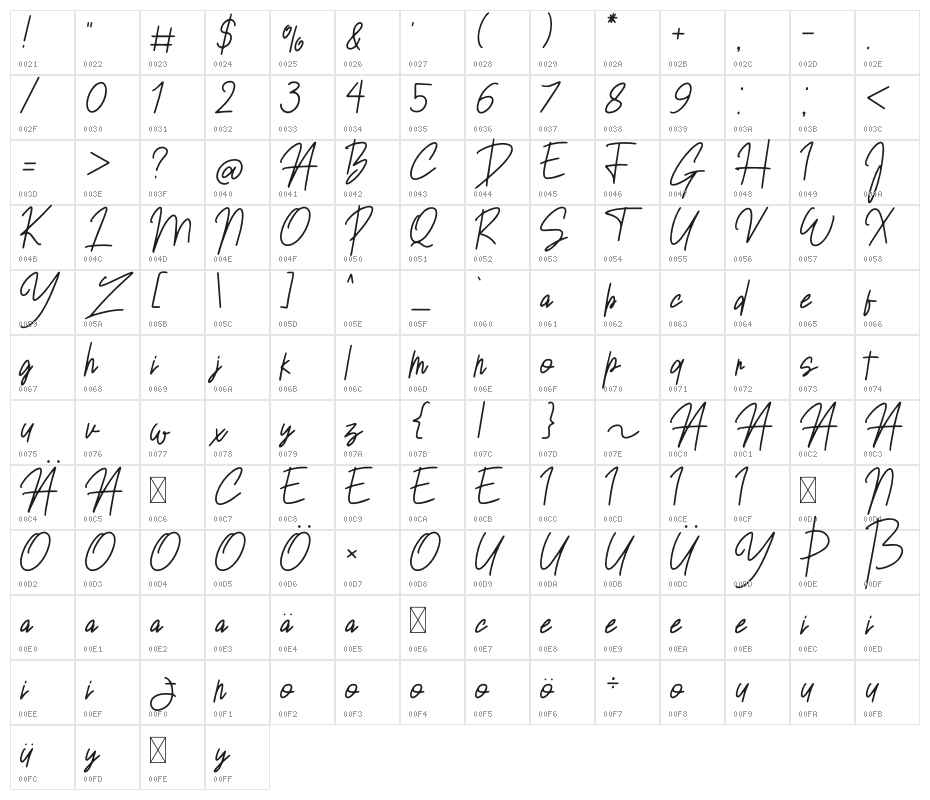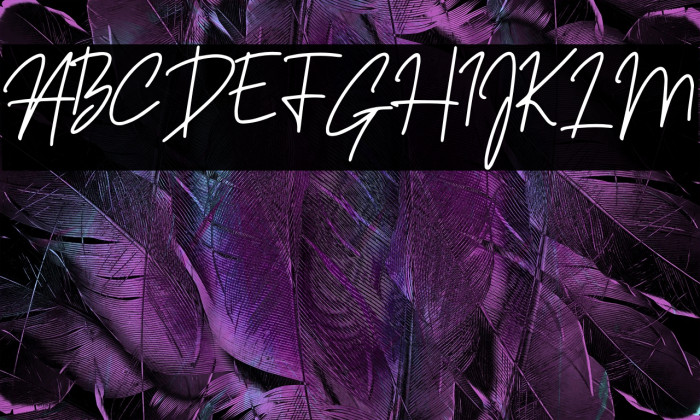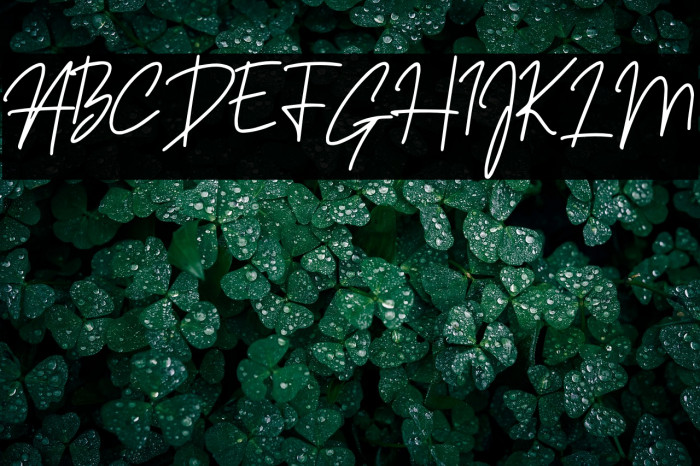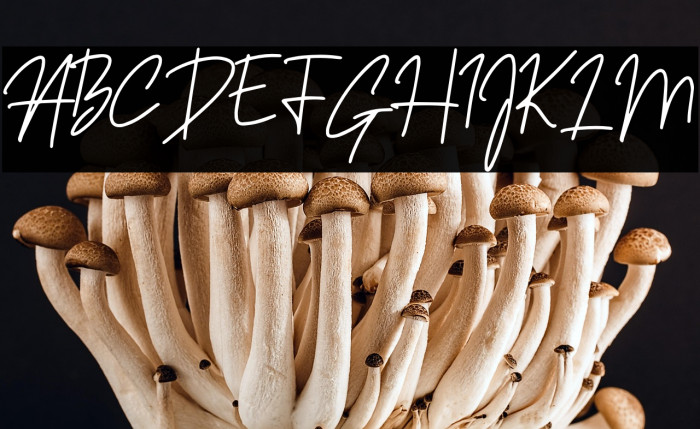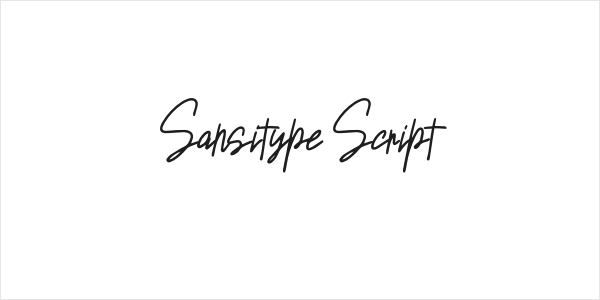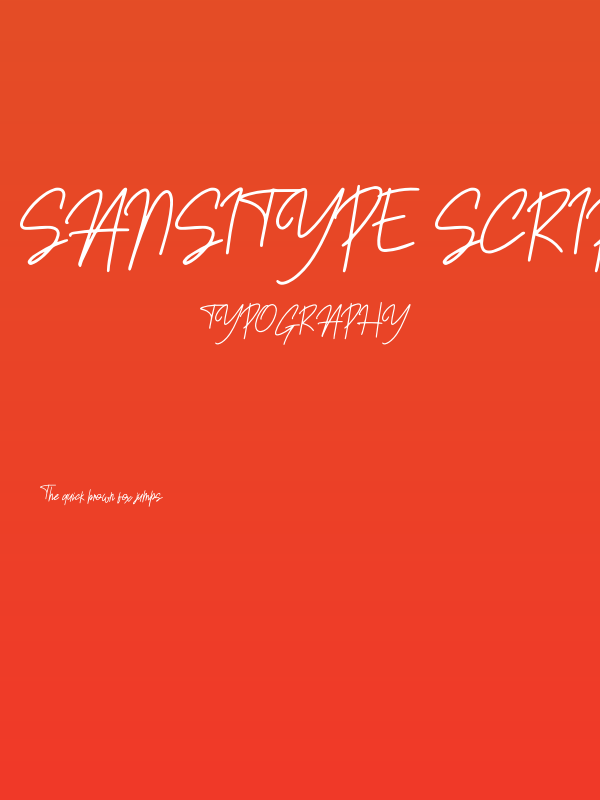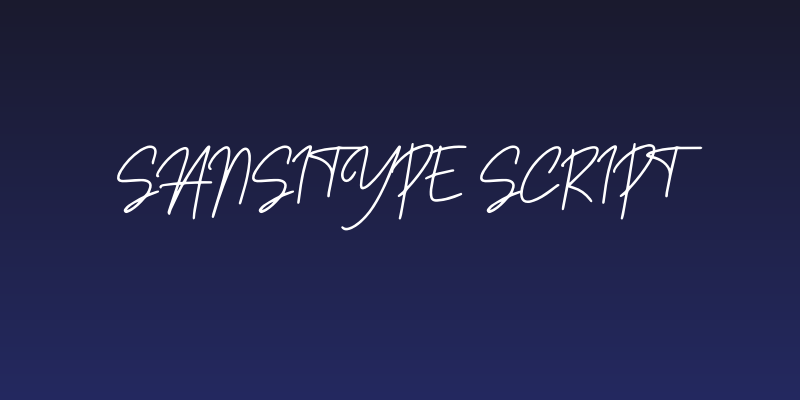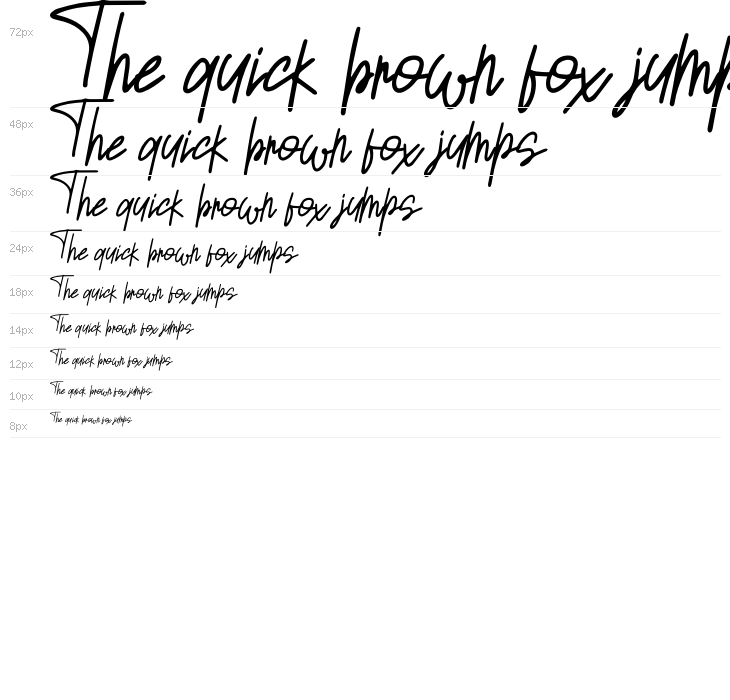
Sansitype Script Font
Sansitype Script Description
This font exudes a dynamic and energetic feel with its fluid, cursive script style. The characters are elegantly connected, giving a sense of continuity and flow. The uppercase letters are tall and slightly slanted, while the lowercase letters maintain a consistent rhythm with smooth curves and loops. The numbers are clear and legible, matching the overall style of the alphabet. Special characters are creatively integrated, maintaining the font's cohesive look. This font is ideal for projects that require a personal, handwritten touch, such as invitations, greeting cards, or branding materials.
| Proposed Projects | Ideal for invitations, greeting cards, branding, and any project needing a personal touch. |